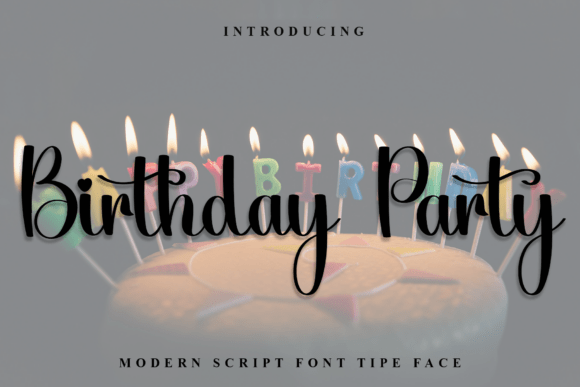
The Birthday Party Font: A Comprehensive Guide to Adding a Touch of Whimsy to Your Designs
I’ll never forget the time I was working on a birthday invitation for a client’s kid’s party. I had the design all planned out, but I just couldn’t find the right font to capture the playful and festive vibe I was going for. That’s when I stumbled upon the Birthday Party font, and it instantly became the perfect fit. In this article, I’ll share my experience with this charming font, its features, and how to make the most of it in your designs.
A Personal Review of Birthday Party Font
The Birthday Party font is a casual and creative font that exudes warmth and friendliness. Its round, playful strokes create a relaxed and approachable feel, perfect for personal projects, invitations, and social media graphics.
What I Love About Birthday Party Font
- ✨ Unique and playful aesthetic: The font’s hand-drawn look adds a fun and unique touch to any design.
- ✅ Easy to read: The font’s rounded edges and clear lettering make it easy to read, even at smaller sizes.
- 💕 Versatile: The font is suitable for a wide range of design projects, from invitations and social media graphics to blog posts and more.
While the Birthday Party font is an excellent choice for many design projects, there are a few things to keep in mind:
- ⚠️ Limited use in formal designs: Due to its playful nature, this font might not be the best fit for formal designs, such as business proposals or official documents.
- 🤔 Some characters may not work well at small sizes: As with any font, some characters may not render well at very small sizes, so it’s essential to test the font before finalizing your design.
A Practical Guide to Using Birthday Party Font
- Experiment with glyphs and stylistic alternates to add unique touches to your design.
The Story Behind Birthday Party Font
The Birthday Party font was designed with the intention of creating a fun and playful font that captures the excitement and joy of celebrating special occasions. The designer aimed to create a font that’s both easy to read and visually appealing, making it perfect for a wide range of design projects.
Q: What type of projects is the Birthday Party font best suited for?
A: The Birthday Party font is perfect for personal projects, invitations, social media graphics, and any design that requires a playful and friendly touch.
Q: Is the Birthday Party font available in different styles or weights?
A: The Birthday Party font is available in a single style, but it features a range of glyphs and stylistic alternates to add variety to your designs.